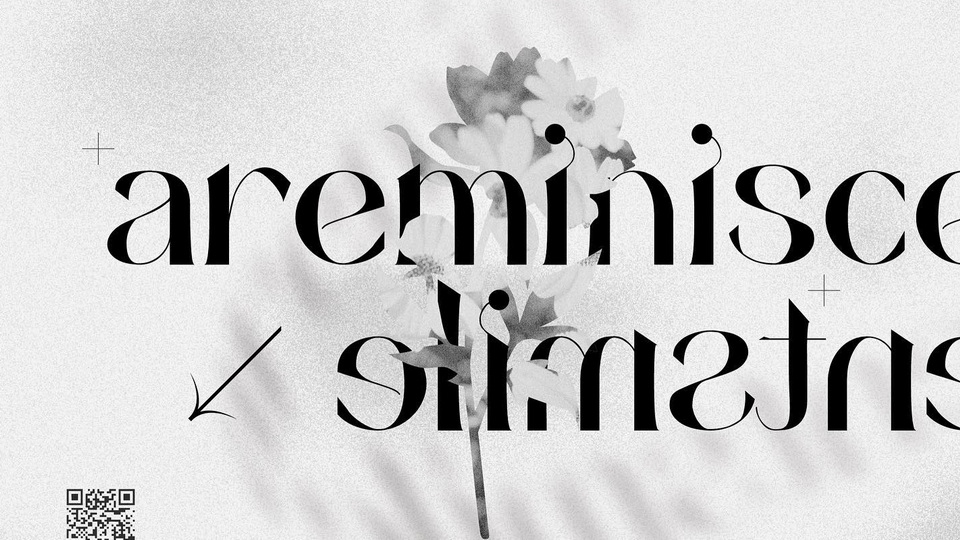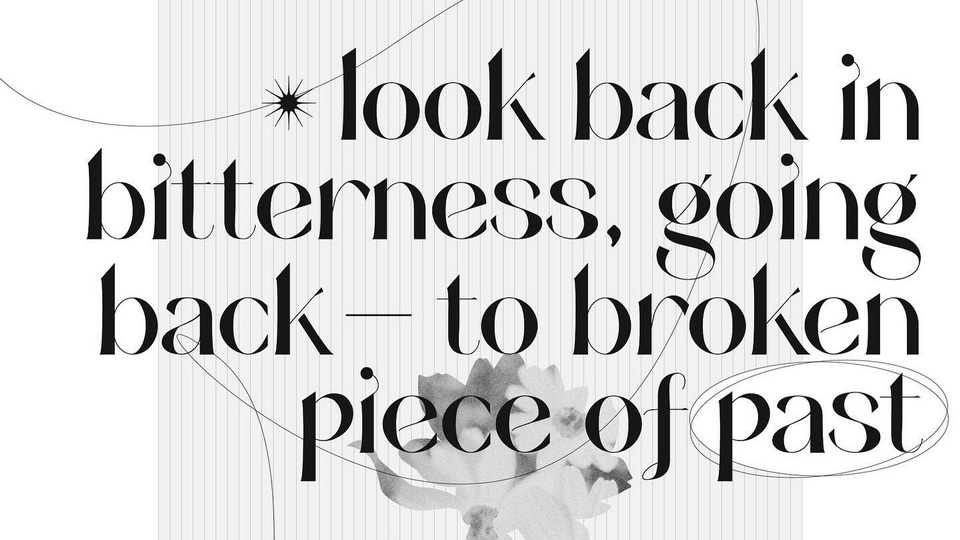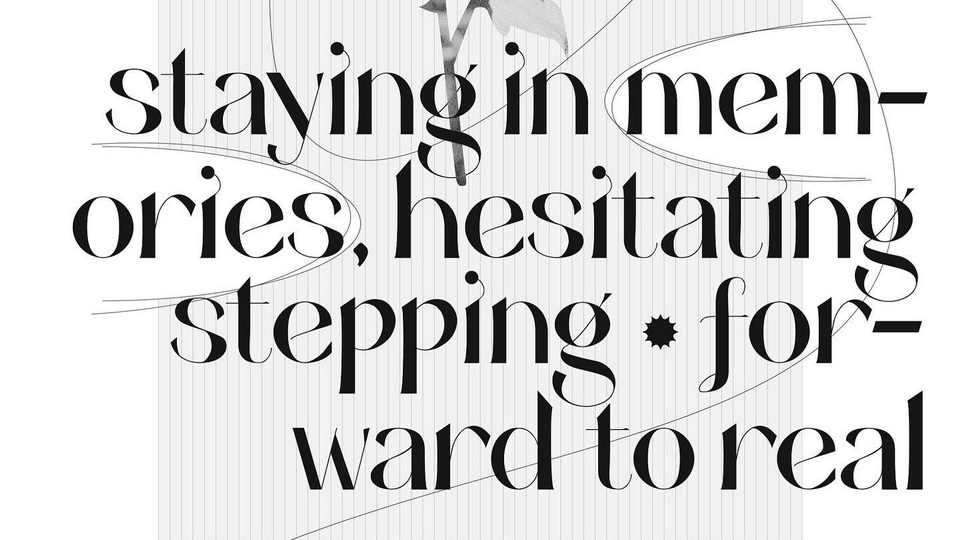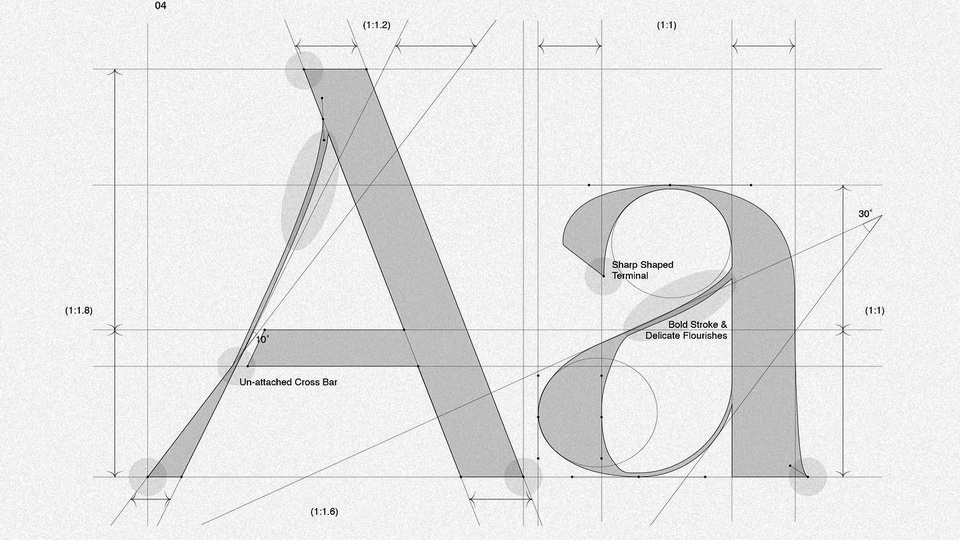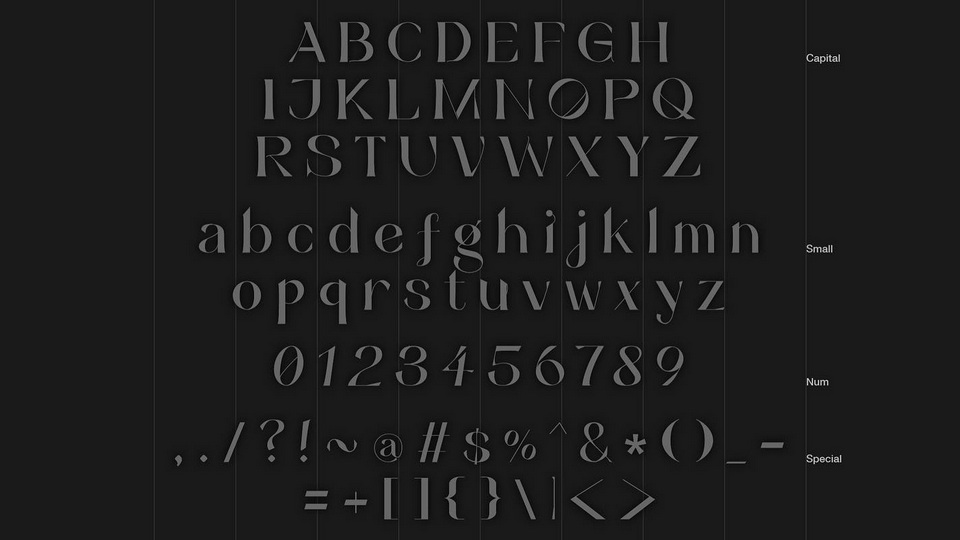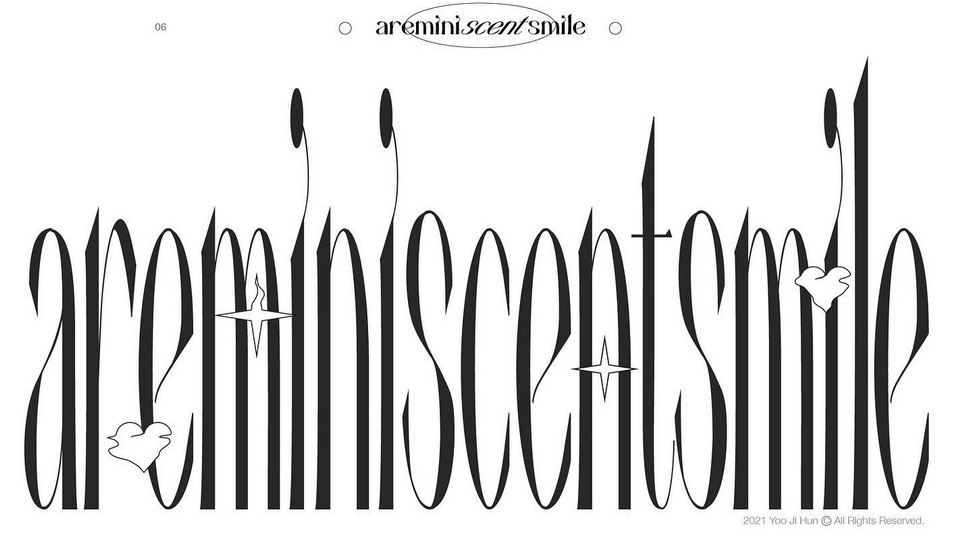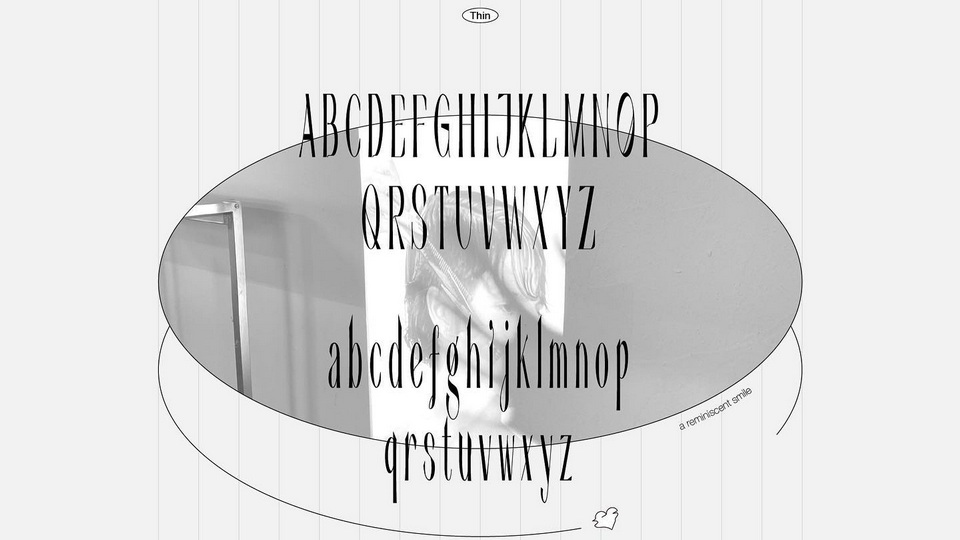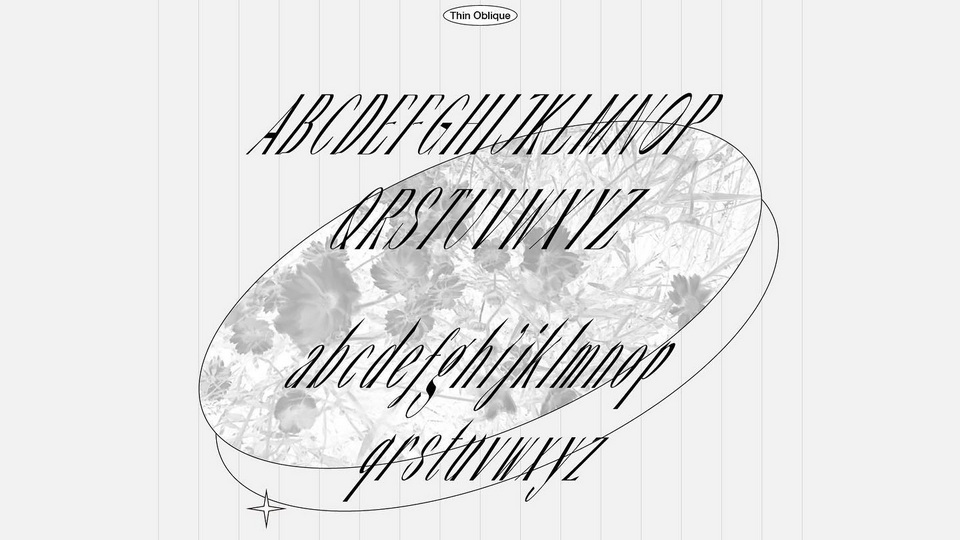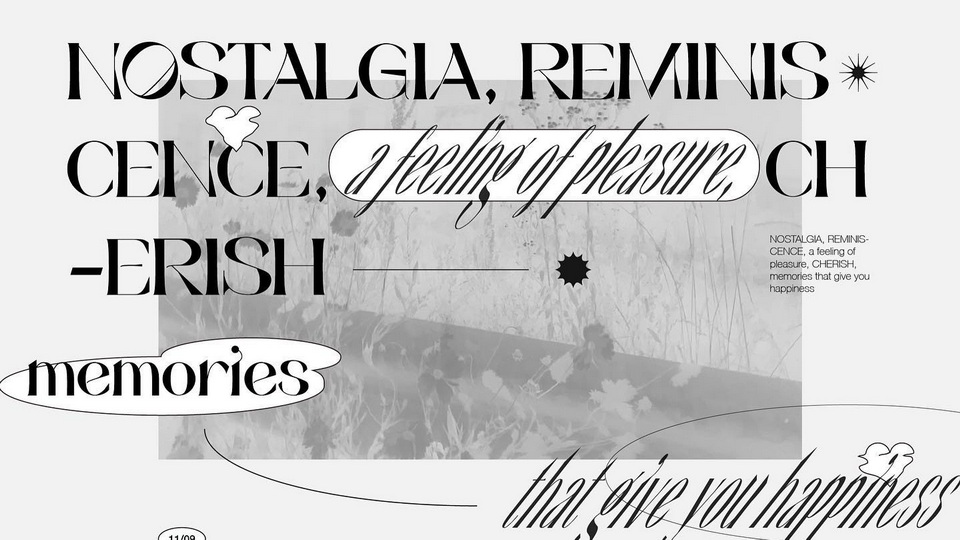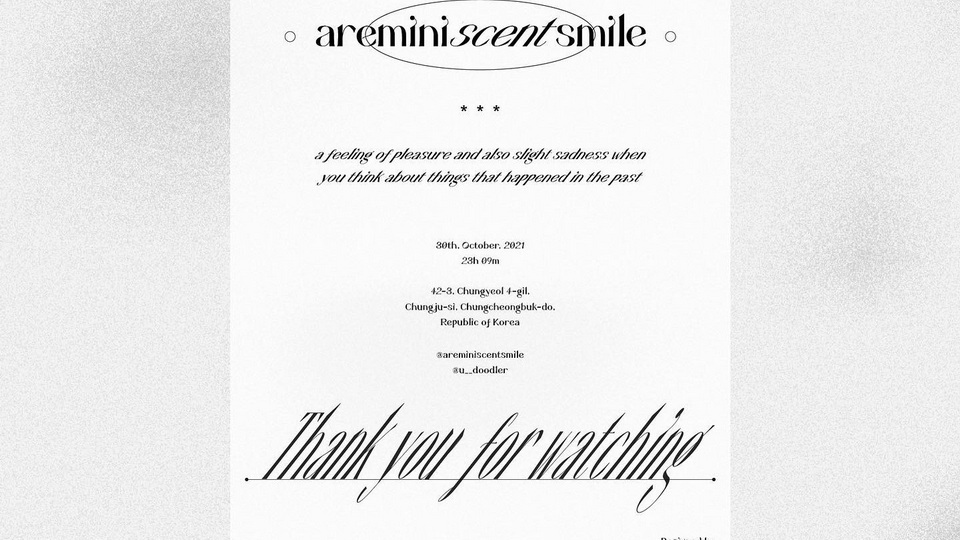
areminiscentsmile is an elegant serif typeface. This font would be a great resource to various type of design, such as branding, logotype, typography, package design, etc. It includes uppercase and lowercase characters, numbers and several special characters.